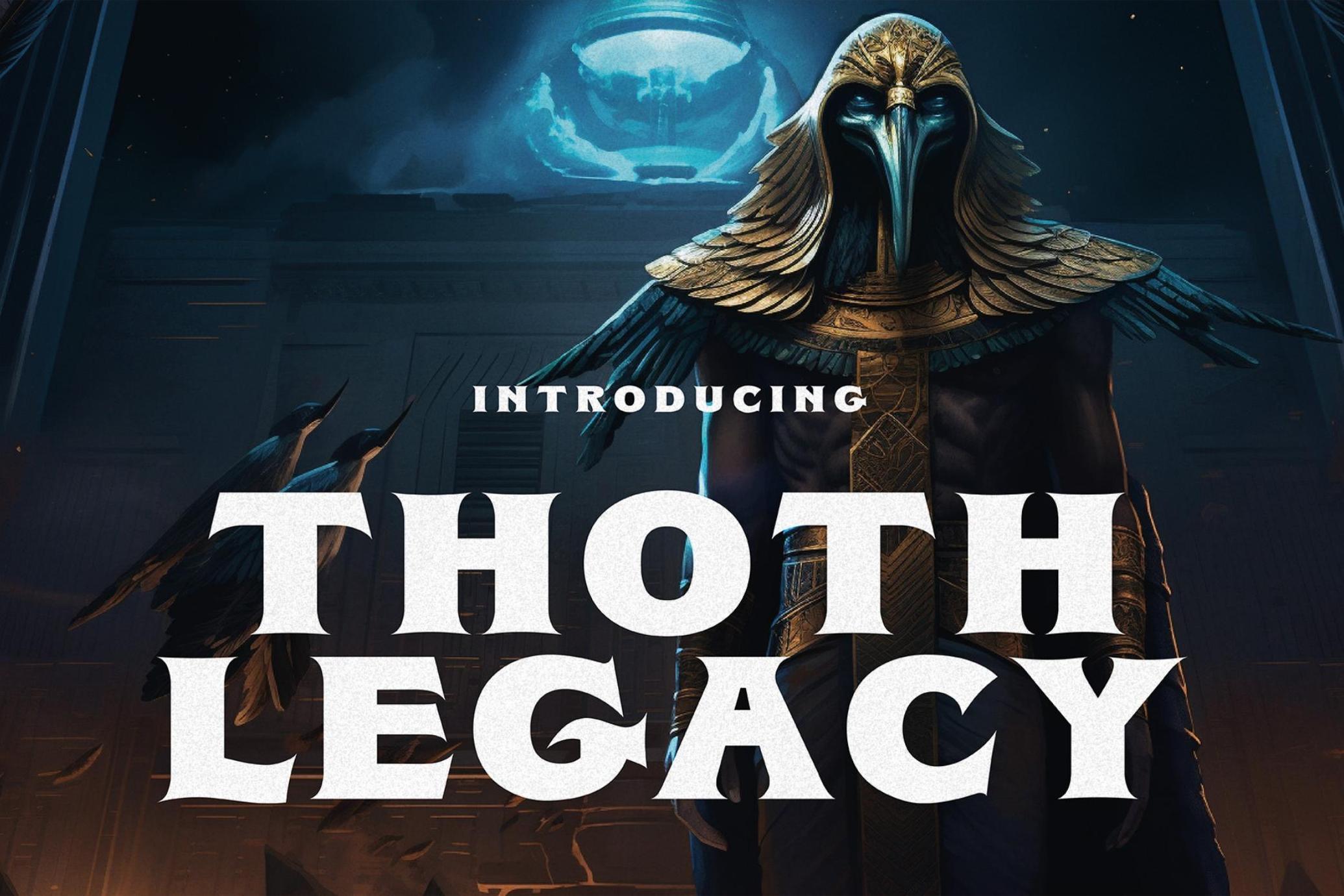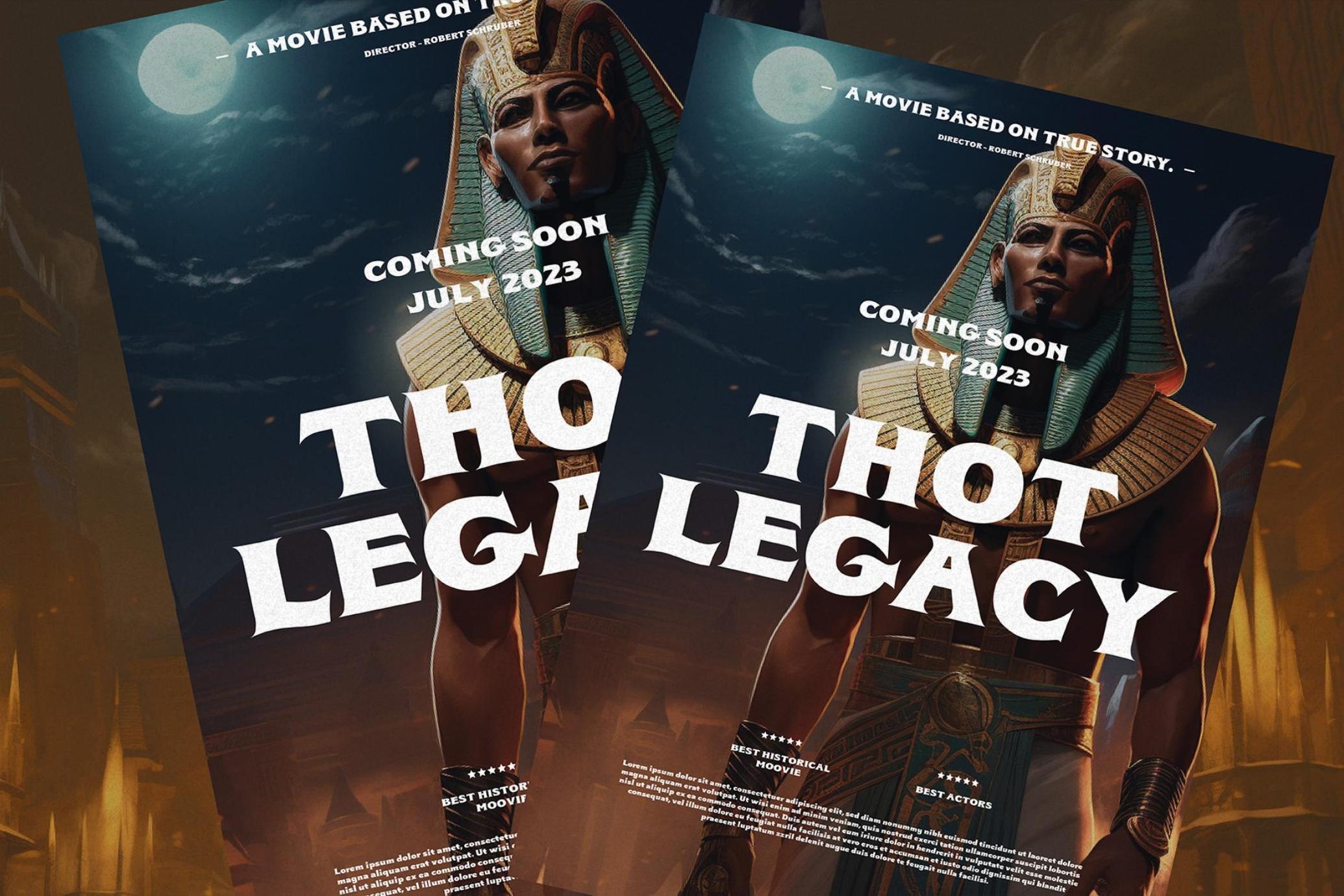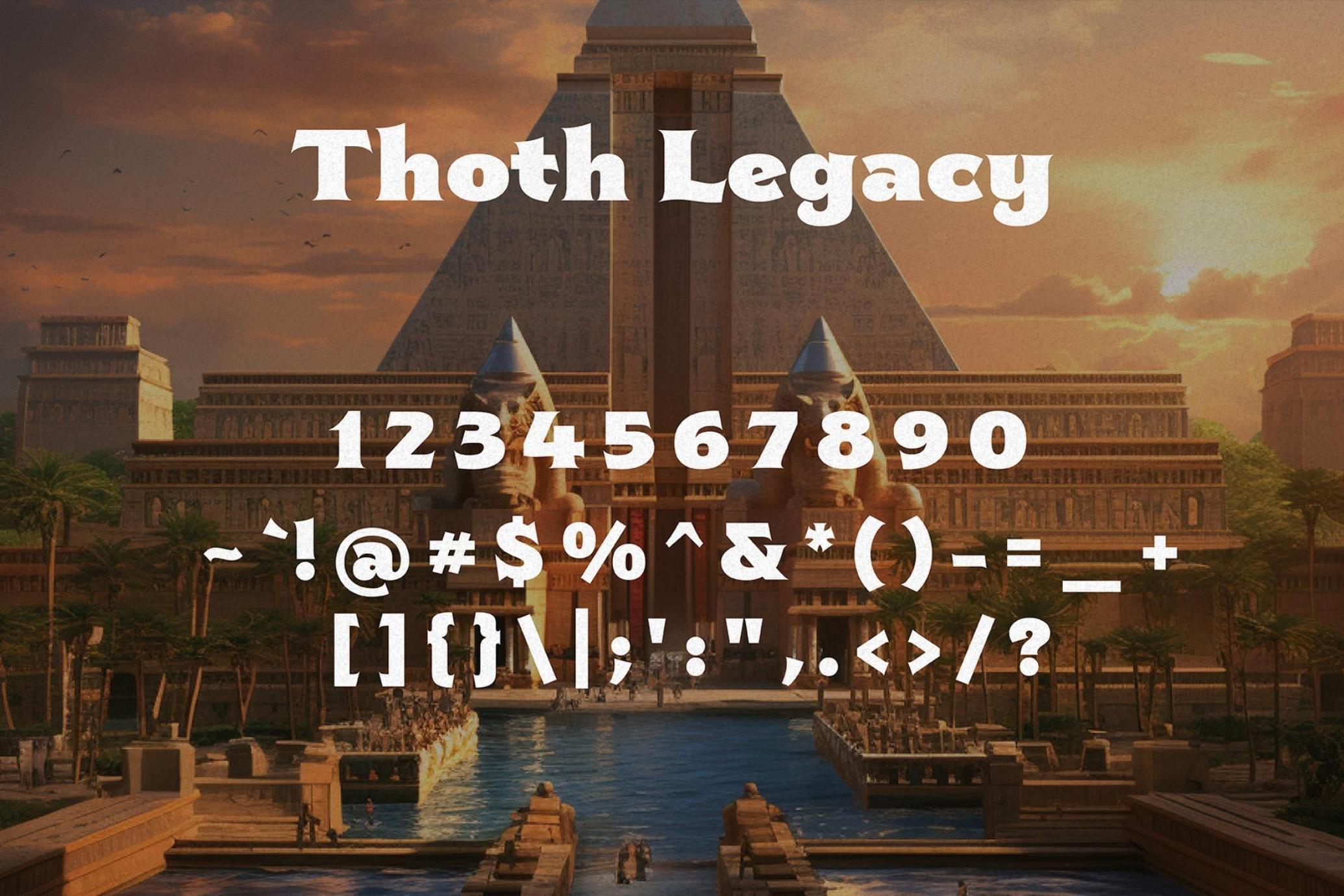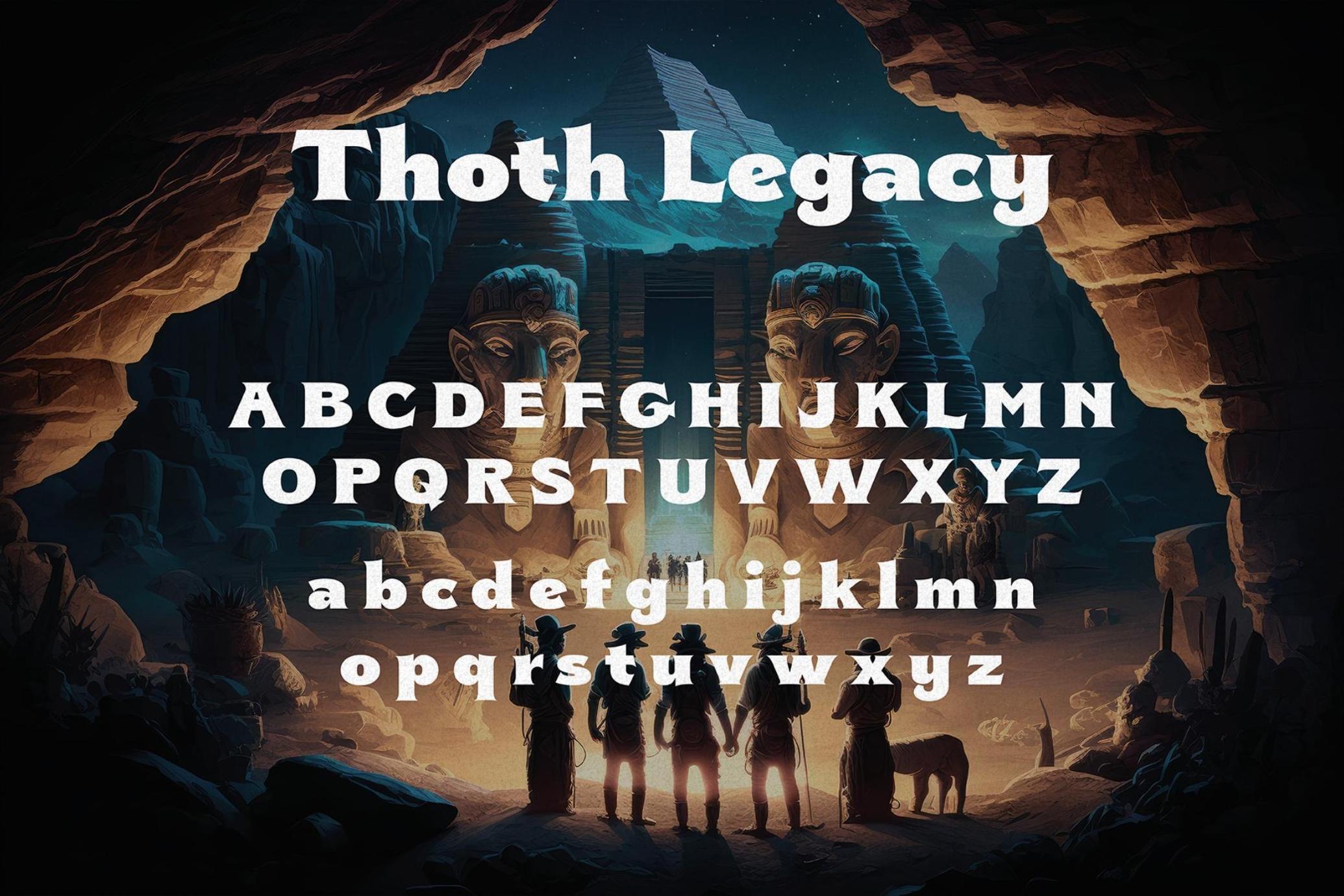
Thoth Legacy - Egyptian Typeface
Prepare to embark on a journey through the sands of history with the Thoth Legacy, an extraordinary Ancient Egyptian Typeface that breathes life into the secrets of antiquity and channels the wisdom of the ages.
The Thoth Legacy isn't just a typeface; it's a portal to a world of ancient wonder. It's your key to crafting designs that transport viewers to the heart of Egypt's storied past, where the sands whisper secrets and hieroglyphs tell tales.